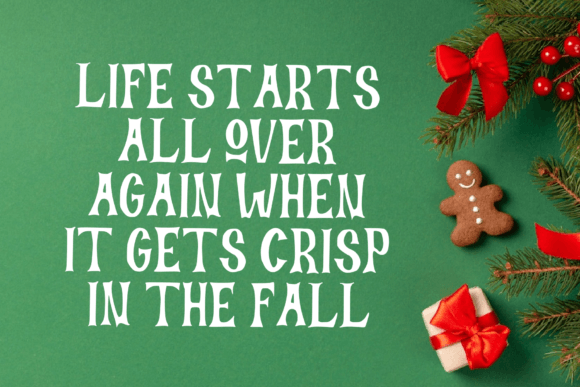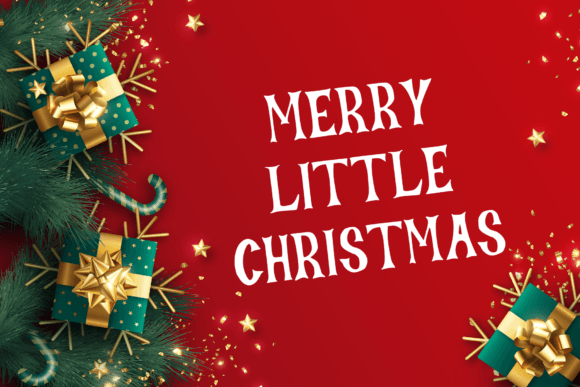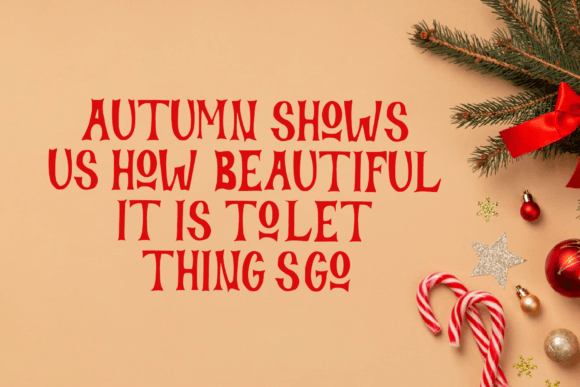
Introduction to Roman Holiday Font
As the snowflakes gently fall outside, there’s something magical about the winter season that inspires creativity within us. You’re sitting at your desk, surrounded by twinkling lights and steaming cups of hot chocolate, when suddenly, a spark of imagination strikes. You envision a festive holiday card, a winter wonderland scene, or a charming gift tag – all of which would be perfectly complemented by the elegant and festive Roman Holiday Font.
This high-quality all-caps serif font is an absolute gem for any designer looking to add a touch of sophistication to their winter break creations. With its transparent background, the Roman Holiday Font seamlessly blends into any design, allowing your creative project to take center stage. The best part? You can download it for free, making it an invaluable resource for any designer looking to elevate their designs.
Key Features of Roman Holiday Font
- High-quality design for creative projects: The Roman Holiday Font is a versatile and elegant font perfect for various design needs, including posters, brochures, and websites.
- Transparent background: This font features a transparent background, making it ideal for designers who want to create visually appealing designs without any background distractions.
- Size and resolution: The font comes in a range of sizes, from 12 to 72 points, and is designed to work well at resolutions up to 300 DPI.
- Unique characteristics: The Roman Holiday Font features a classic, elegant design with subtle flair, making it perfect for designers who want to add a touch of sophistication to their creative projects.
- Design resource: This font is an excellent addition to any designer’s collection, providing a high-quality design resource for a wide range of creative projects.
Honest Review: Roman Holiday Font
I recently had the chance to try out the Roman Holiday Font, and I must say it’s a great addition to any designer’s toolkit. The high-quality design and transparent background make it a versatile resource for any creative project.
What works well is the elegant and classic feel of the font, which is perfect for projects that require a touch of sophistication. It’s also great to see that this font is available for free download, making it a valuable resource for designers on a budget.
- ✨ Elegant and classic design
- ✨ High-quality and detailed font
- ✨ Transparent background for easy use
However, there are a few limitations to keep in mind. The font may not be suitable for projects that require a more modern or bold look. Additionally, the font may not be as extensive as some other fonts on the market, with a limited character set.
Overall, I’m impressed with the Roman Holiday Font. While it may not be the perfect fit for every project, it’s a great addition to any designer’s toolkit and a valuable resource for designers working on creative projects.
- ⚠️ Limited character set
- ⚠️ May not be suitable for modern or bold projects
The Roman Holiday Font is a free download and a valuable design resource for any creative project. With its high-quality design and transparent background, it’s perfect for designers who want to add a touch of elegance and sophistication to their designs.